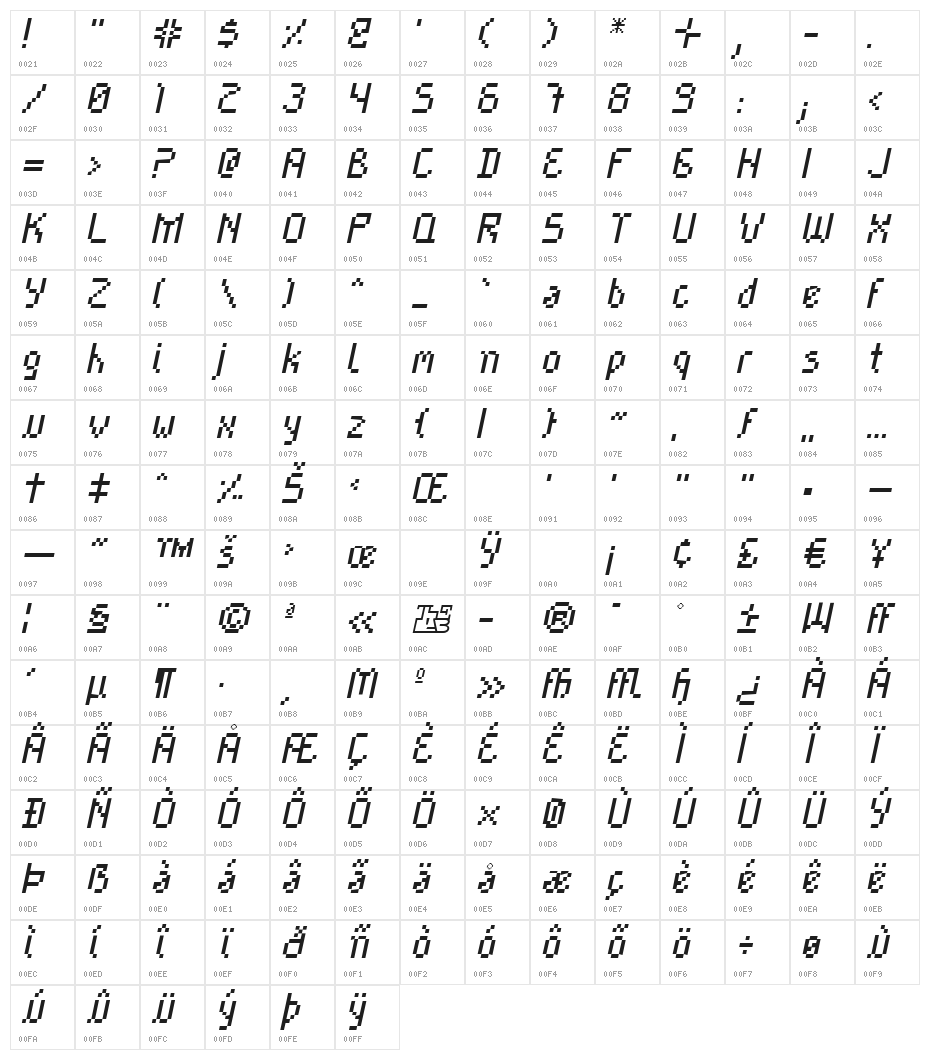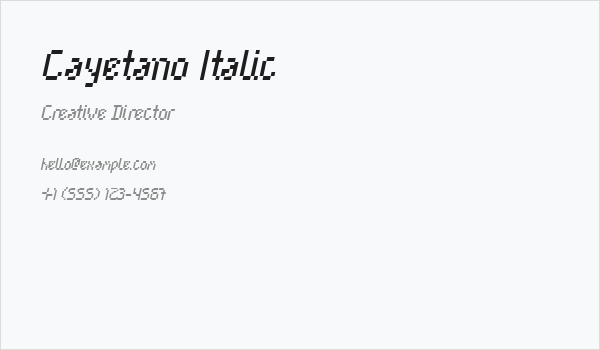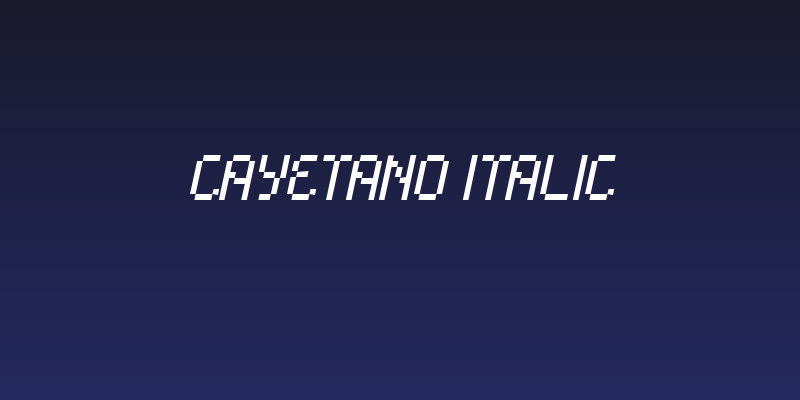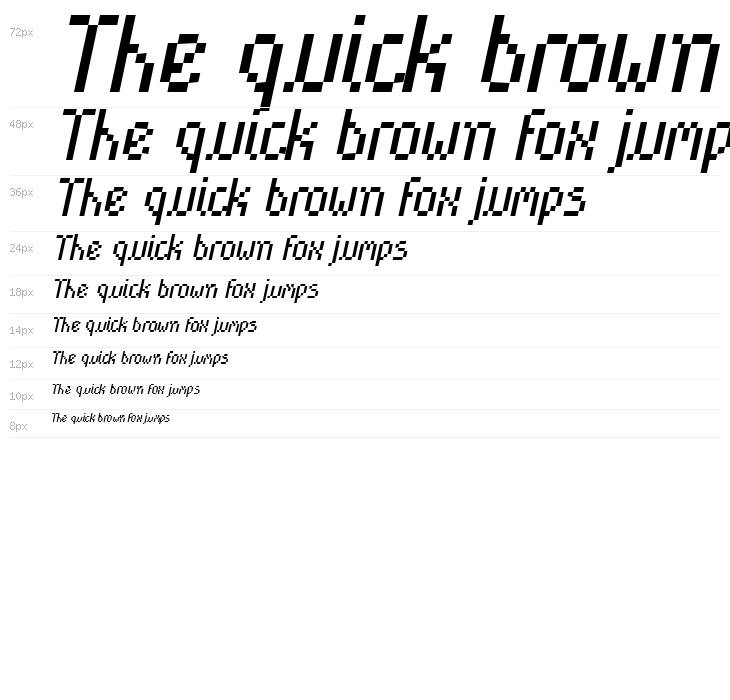
Cayetano Italic Font
Cayetano Italic Description
This font features a distinct pixelated style, reminiscent of early digital or arcade aesthetics. Each character is composed of bold, blocky shapes that give it a strong, geometric appearance. The italic slant adds a dynamic and forward-moving feel, enhancing its modern and edgy look. The uppercase and lowercase letters maintain a consistent design, ensuring readability while preserving the unique style. Numbers and special characters are crafted with the same attention to detail, making them easily recognizable. This font's design is both nostalgic and contemporary, making it versatile for various creative applications.